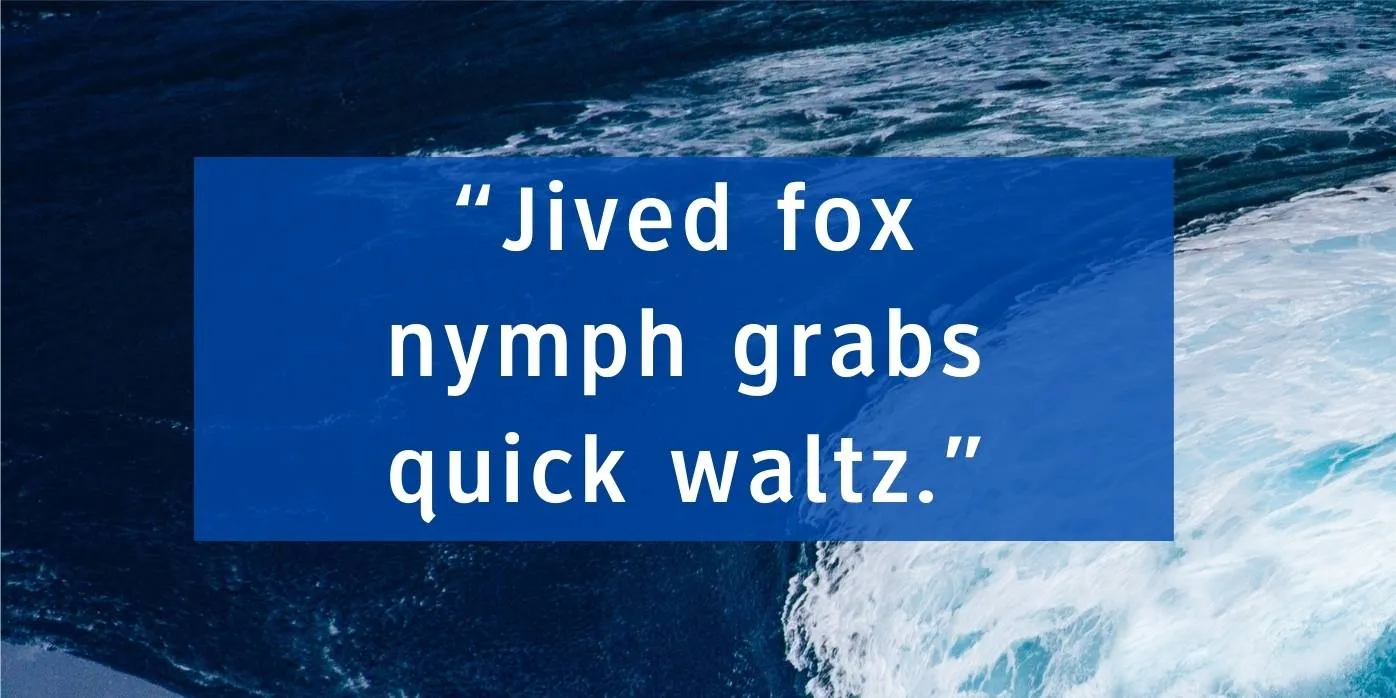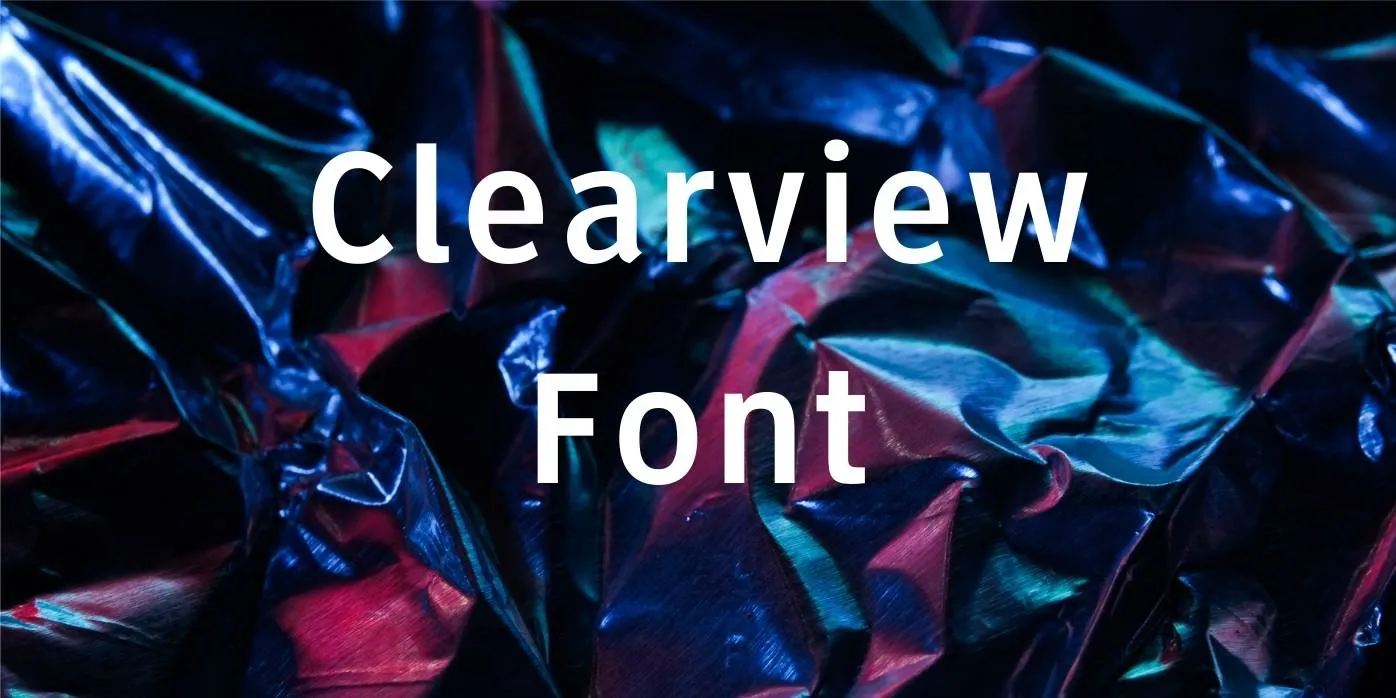
Clearview Font
Clearview Font was designed by very famous designer Terminal Design Inc. This typeface belongs to the Sans-Serif font family. This cozy Font is cached by many people because it has clear and open letterforms. This awesome Font is perfect for signage, wayfinding, and other transportation applications.
This stunning Font has been specially designed for legibility at high speed and large sizes. You can use this font for both personal and commercial projects. This classy Font is best for different designs with its keen features. This font is very close to the Nunito Sans Font.
This typeface contains a lot of special characters. The space between its characters is wide, so it has good legibility at small sizes. This typeface is available In different styles including Regular, Italic, Condensed, and Ultra-Condensed.